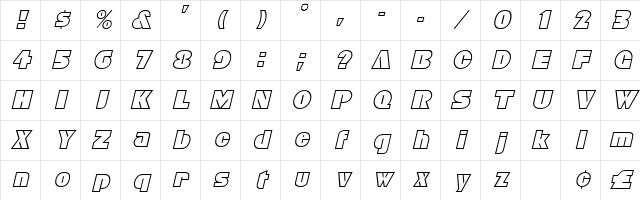
Revere is a composed and adaptable typeface that performs quietly and consistently across a wide range of design contexts. The slanted form adds forward momentum and visual energy.
Pro Tip: Use Revere for emphasis, pull quotes, and subheadings where its slanted energy can add rhythm to the layout.